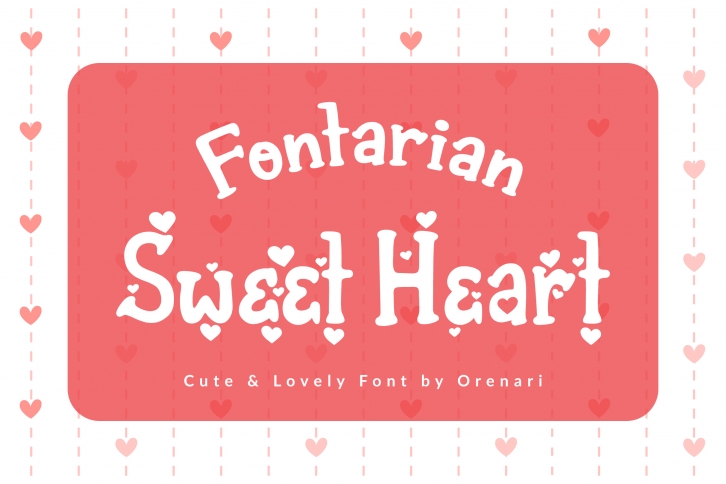
arian Sweet Heart is a great font that was designed by Orenari. Imagine the amount of combinations you can create using this font! The archive is 21.68 MB and it was released on January 22, 2020. arian Sweet Heart looks beautiful on wedding invitations, greeting cards, logos, posters, labels, t-shirt designs, logos, business cards and is perfect for use in ink or watercolor works, fashion, magazines, packaging and food menus, children's books and more!